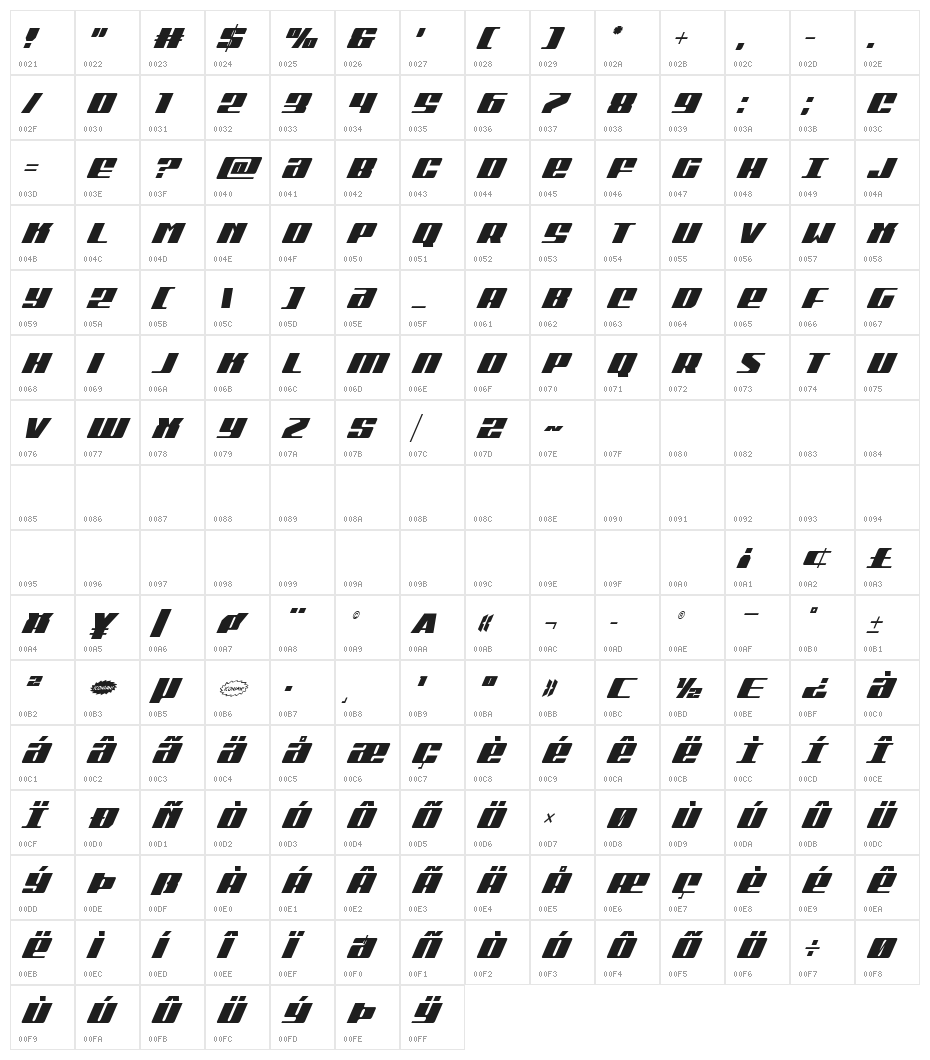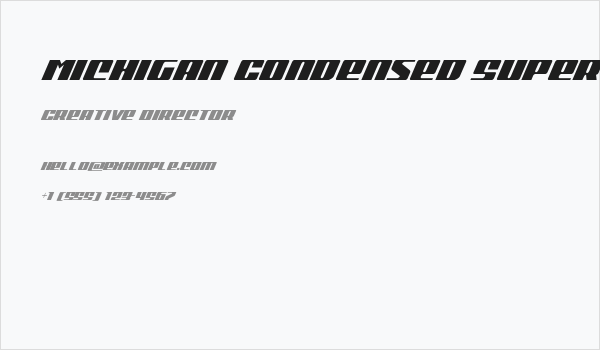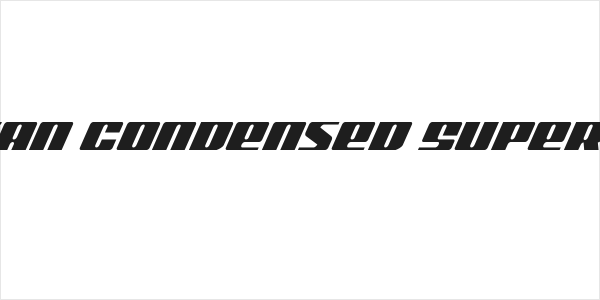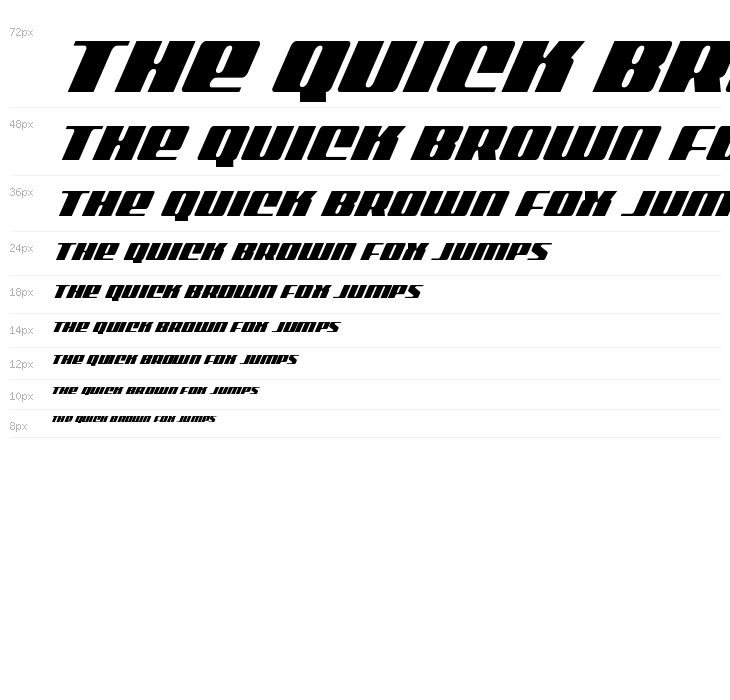
Michigan Condensed Super-Italic Font
Michigan Condensed Super-Italic Description
This font features a bold and dynamic style with a strong italic slant, giving it a sense of motion and urgency. The characters are condensed, making it ideal for space-saving designs while maintaining a powerful presence. The strokes are thick and consistent, providing a uniform appearance across all characters. The angular cuts and sharp edges add a modern and edgy feel, making it suitable for contemporary design projects. The numbers and special characters are designed with the same boldness and style, ensuring a cohesive look throughout any text. This font is perfect for projects that require a strong visual impact and a modern aesthetic.
| Proposed Projects | Ideal for sports branding, dynamic posters, modern logos, and impactful headlines. |